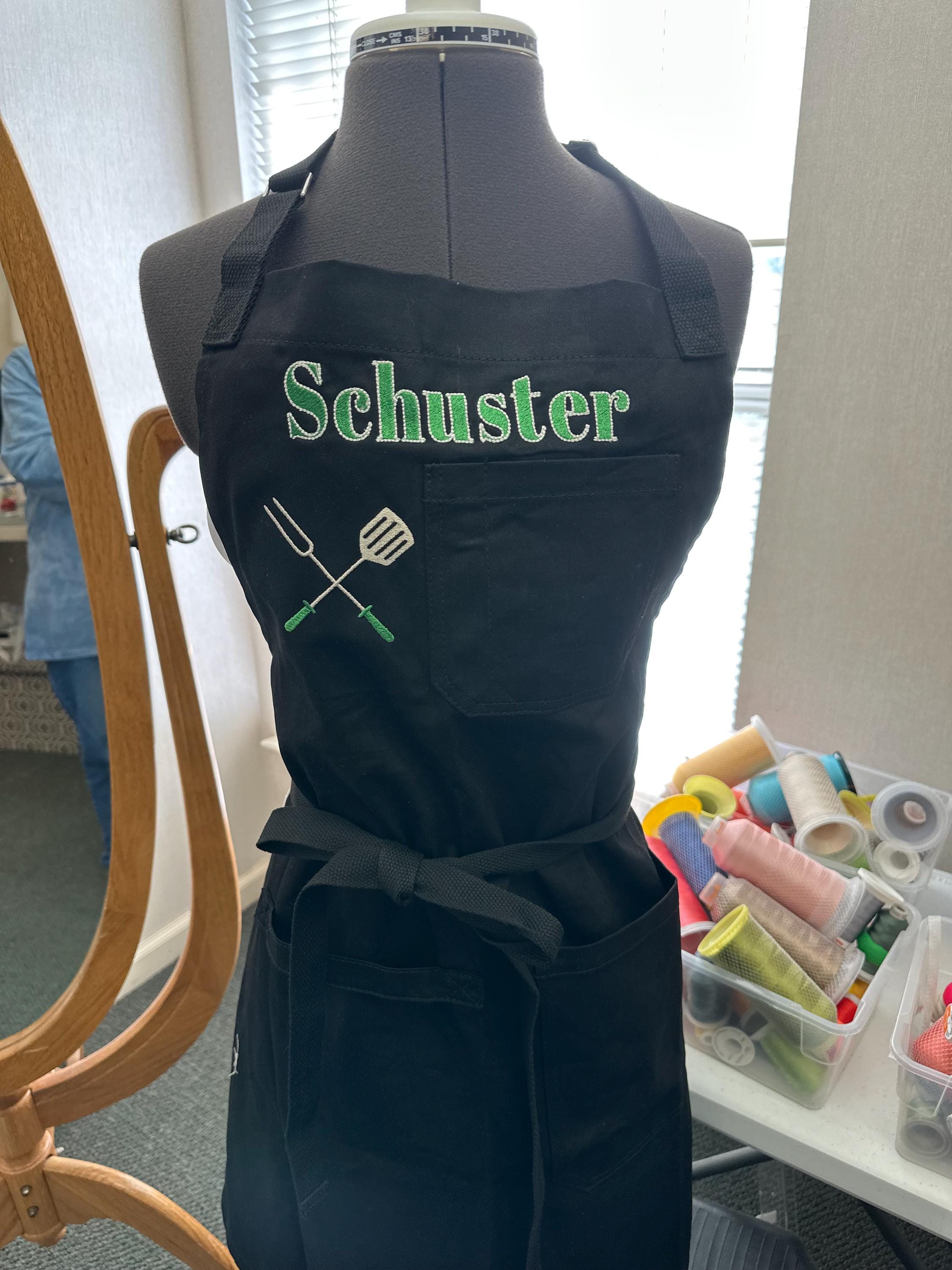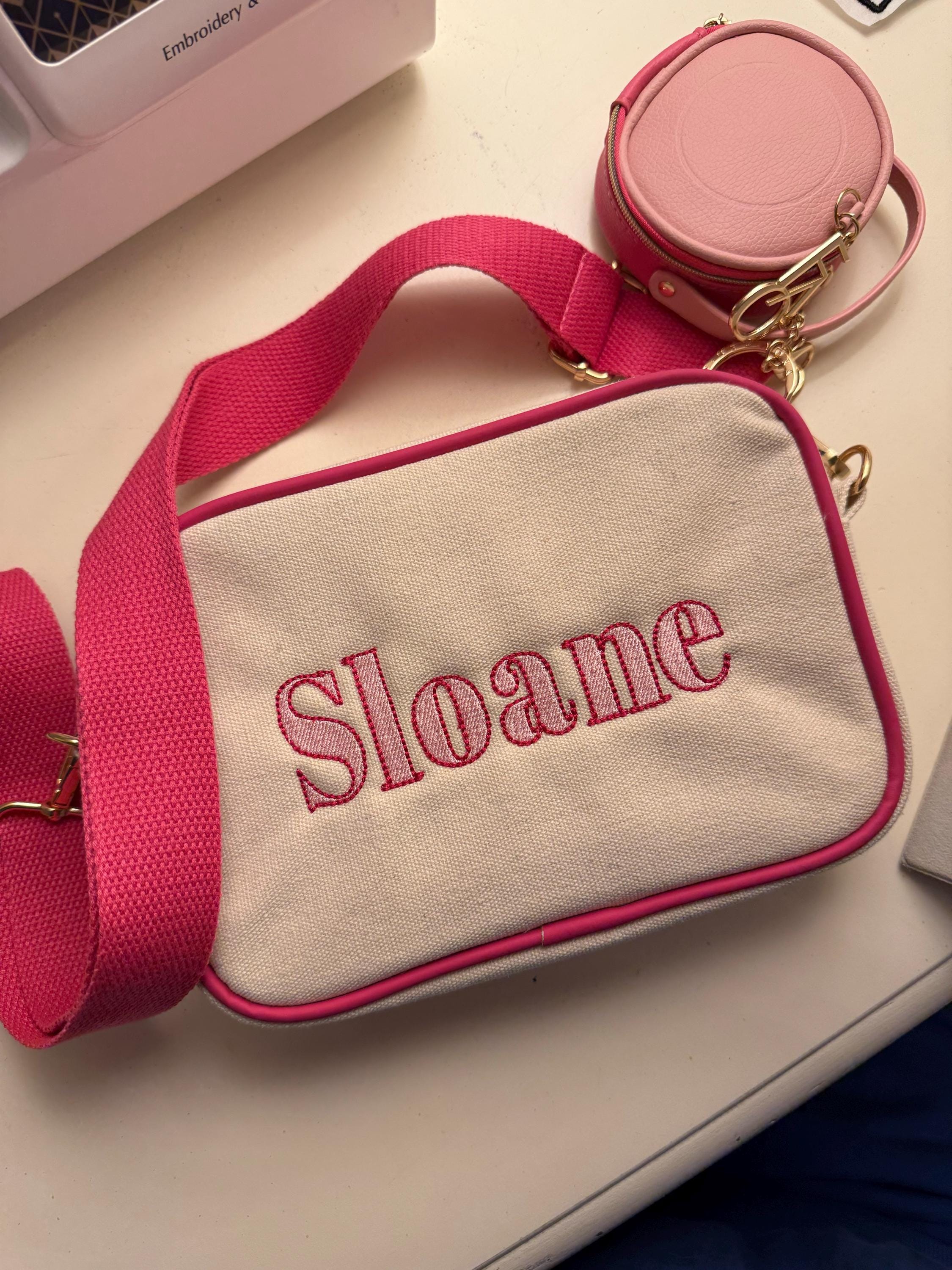
Elegant Block Font Kate is a clean block embroidery font designed in bean stitch for crisp, modern monograms. This bean stitch alphabet includes uppercase, lowercase, numbers and punctuation and is supplied in PES, DST, EXP, VIP, HUS, XXX, JEF and VP3 formats. Use this block embroidery font and bean stitch font for kids' clothing, girl accessories, or personalized home linens—the set includes sizes from 0.9" up to 3.5". Stitch count is 6733 and the design uses 2 colors for a neat, professional finish. Keywords covered: elegant block font, bean stitch alphabet, monogram font, block embroidery font.
Bean stitch gives a soft outlined look with a slightly raised edge ideal for block-style letters; expect clear edges and a textured outline that highlights monograms while keeping density moderate.